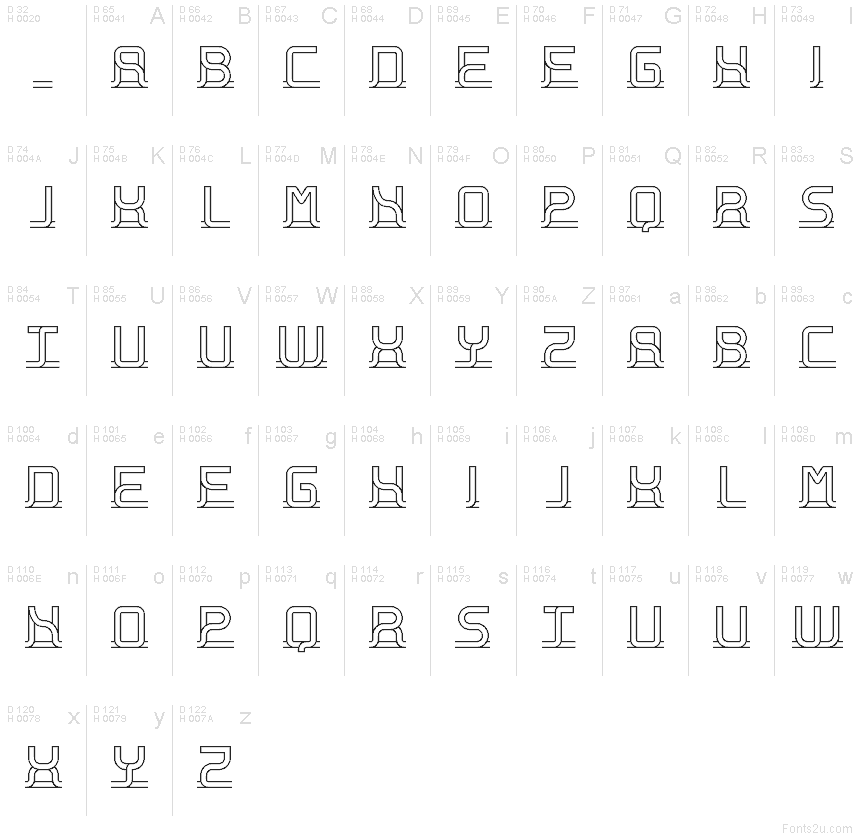
Matin Obscure Regular
Matin Obscure font by Vladimir Nikolic is a free outlined display typeface that draws the eye with its maze-like, continuous strokes. Each letter feels like a neon tube bent into smooth corners and tight turns, creating a flowing grid of lines that lock together when set in all caps. The double-outline effect adds a crisp, almost architectural feel, giving your titles a sense of motion and depth without any shading or gradients.
Using Matin Obscure, headlines instantly gain a futuristic, tech-club energy that shines on posters, event flyers, album covers, gaming graphics, sci-fi branding, and bold logotypes. This free font works beautifully at large sizes where the interlocking paths can really breathe. Pair it with a clean geometric sans for body copy, and keep plenty of spacing around it so the intricate outlines stay sharp and legible.